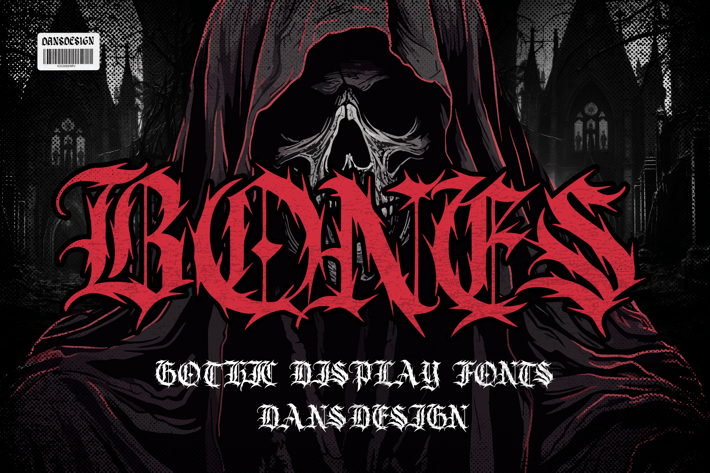
BONES Blackletter Gothic Display Font
BONES Blackletters Gothic Display Font
BONES Blackletter Gothic Display Font a distinct, highly detailed, and chic Blackletter font.
It would make a great choice for exquisite retro-urban designs, tattoo business branding, logos, vintage designs, movie, poster, apparel, illustration, and more.